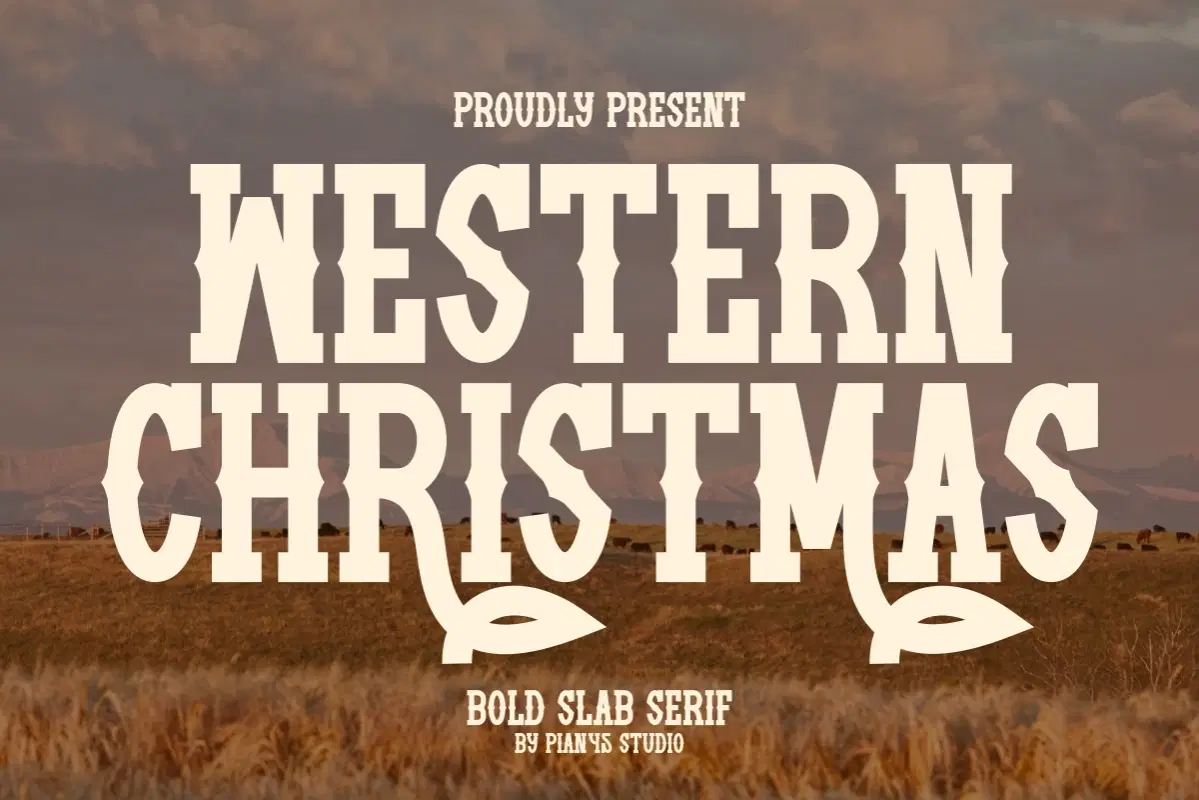
Western Christmas - Bold Slab Serif Font
Western Christmas is a uniquely styled, bold Slab Serif font that masterfully combines rugged Western charm with festive holiday warmth. Its sturdy, all-caps structure and striking decorative swashes make it the perfect display font for seasonal ranch branding, cowboy Christmas apparel, rustic posters, and unique holiday crafting. This typeface delivers an authentic, nostalgic, and powerful visual identity, ideal for projects seeking a strong, country aesthetic for winter merchandise and marketing.